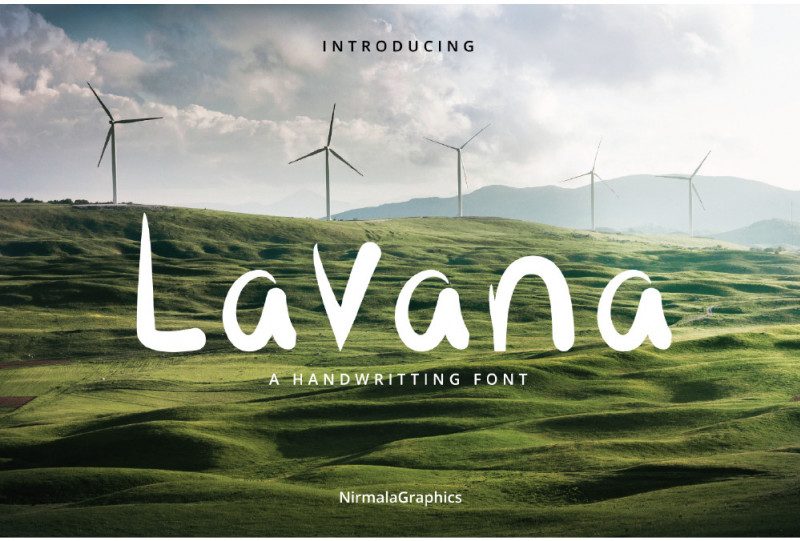
Lavana Script Font
Hi, friend . I re-issued a new FONT which is “Lavana Script Font“. the font that I made in handwriting style. and this font is very suitable for any purpose. Have a nice day.